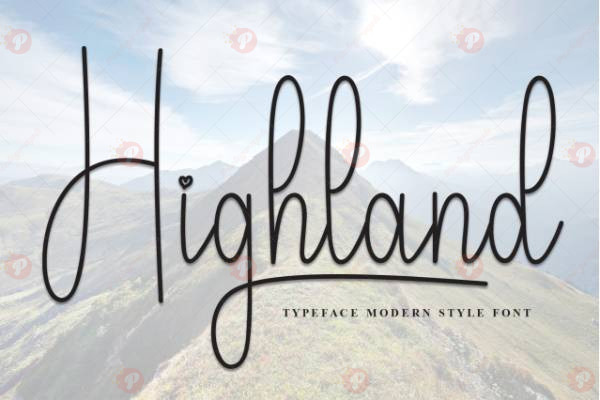
The Highland Handwritten Font Free is an elegant and stylish handwritten typeface that brings a personal and modern touch to your designs. With its smooth curves, natural flow, and authentic hand-drawn style, this font is perfect for wedding invitations, branding, greeting cards, posters, logos, and social media graphics.
Whether you’re working on luxury branding, lifestyle blogs, event stationery, or creative packaging, the Highland Handwritten Font Free delivers a sophisticated yet approachable look. Its balance of elegance and casual charm makes it versatile for both professional and personal projects.
Typeface: Script / Handwritten
Style: Elegant / Stylish / Authentic / Modern